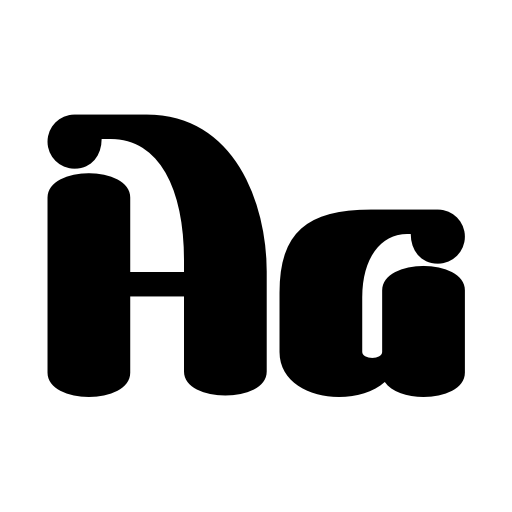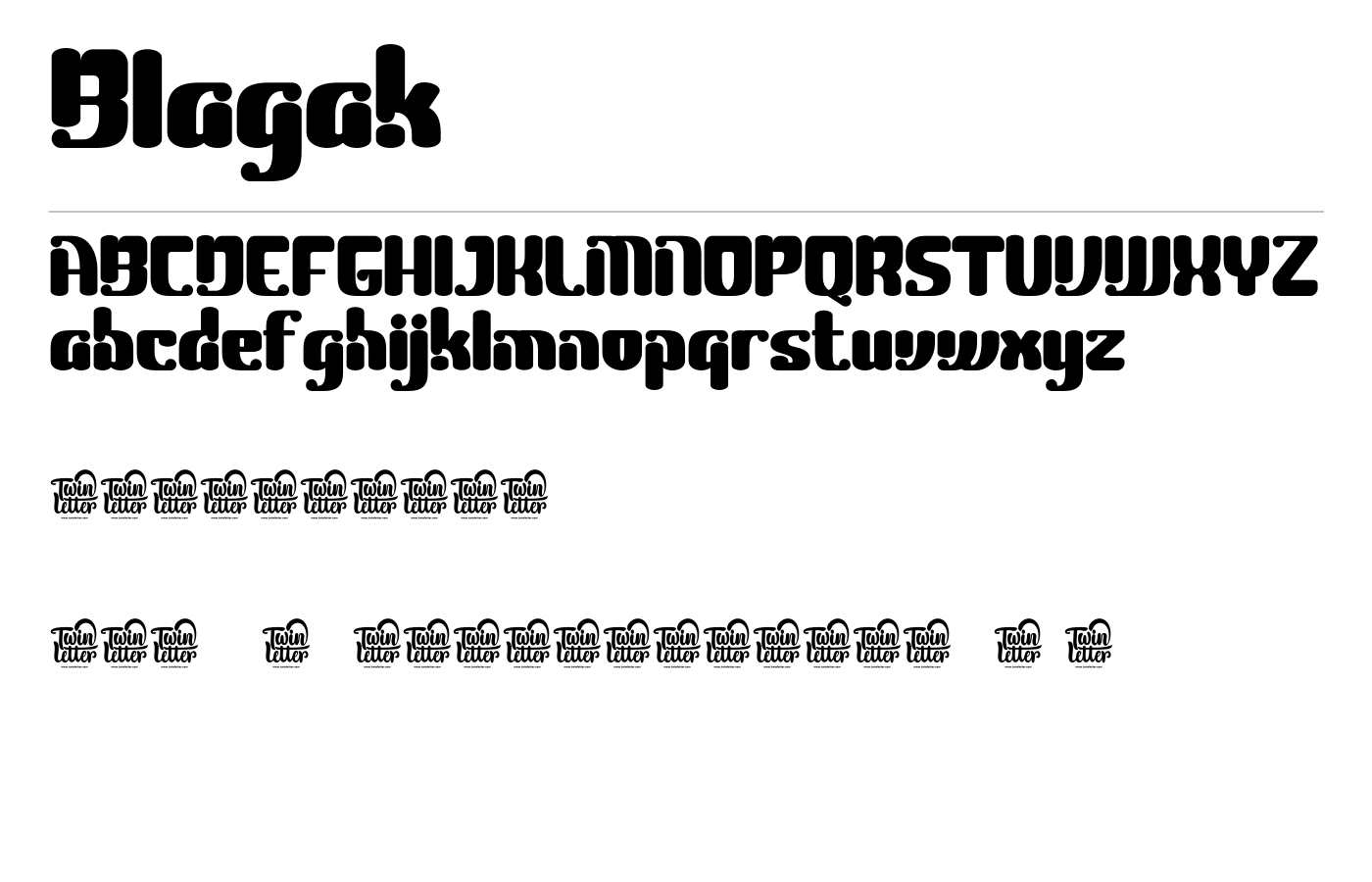
Blagak is a bold, rounded sans serif font with a modern, playful feel that combines thick strokes and soft curves for a friendly yet strong personality. Its unique letterforms, including distinctive double-story characters and compact structure, make it ideal for eye-catching headlines, branding, and poster design where a fun and approachable vibe is desired. This font works well for creative projects wanting to convey warmth and confidence with a contemporary edge.
Blagak Font
About Blagak Font